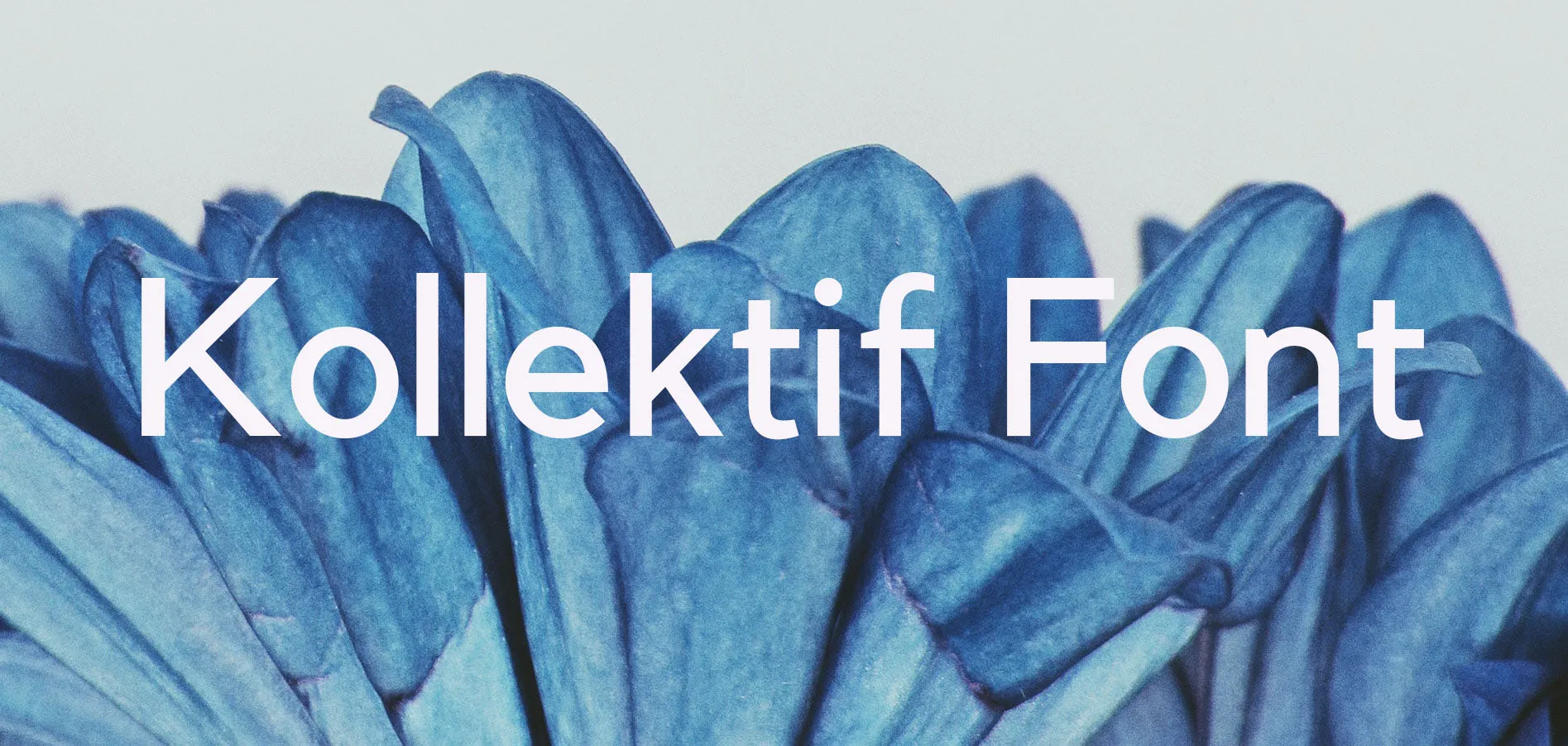
Kollektif a very standard sans-serif typeface that is known as Kollektif Font. The designer of this typeface is a German notable font designer Dogu Kaya. It was released on 25 September and 2017.
This font family comes in two styles and four weights including Regular, Bold, Bold Italic, and Italic. Lato Font and Gidole font are the most similar fonts on the web.
NameKollektif Font
DesignerDoğu Kaya